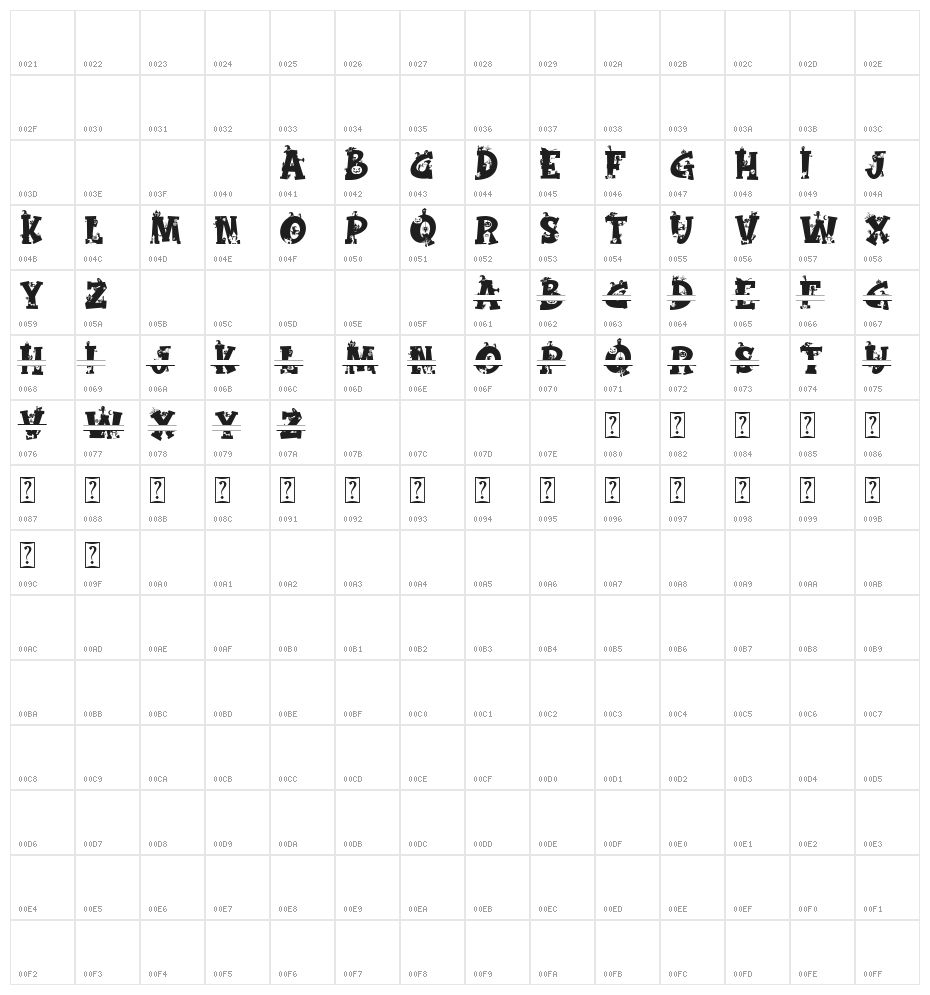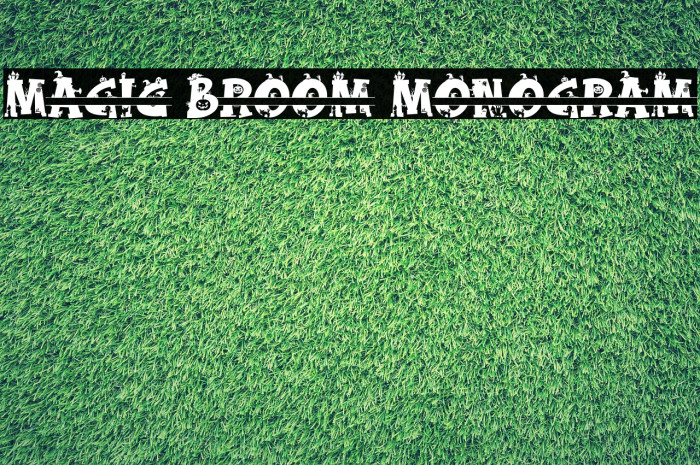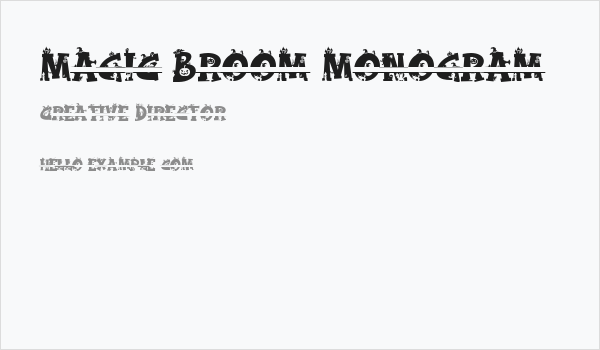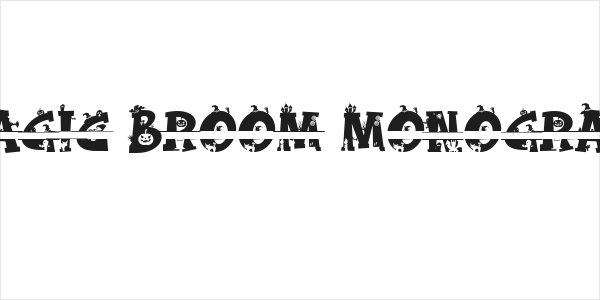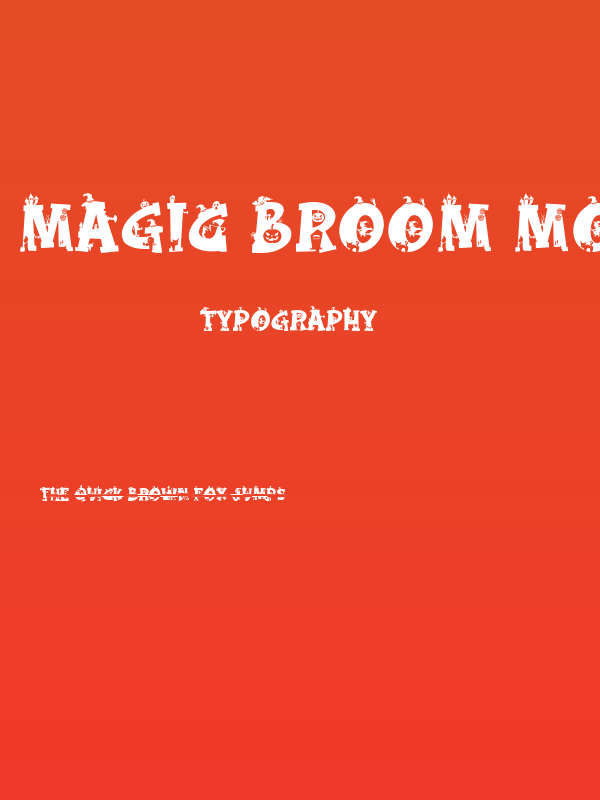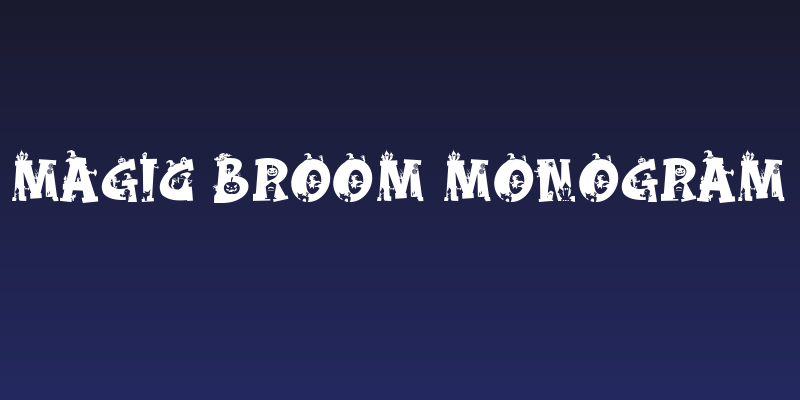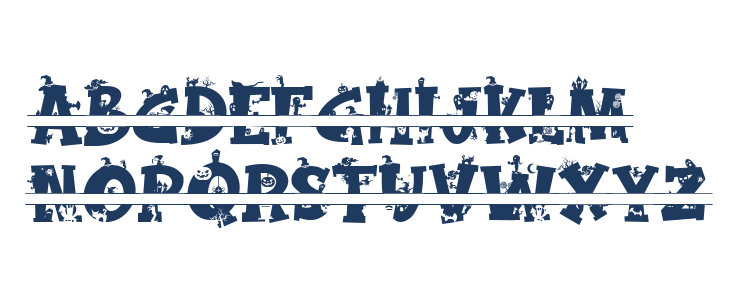
Magic Broom Monogram Font
Magic Broom Monogram Description
This font is a whimsical and decorative typeface that incorporates playful Halloween-themed elements into each character. The letters are adorned with illustrations such as witches, brooms, pumpkins, and bats, creating a festive and spooky atmosphere. The bold and chunky letterforms ensure readability while maintaining a fun and engaging appearance. This font is perfect for seasonal designs, particularly those related to Halloween, as it captures the essence of the holiday with its unique and creative embellishments.
| Proposed Projects | Ideal for Halloween invitations, party decorations, themed posters, and festive greeting cards. |